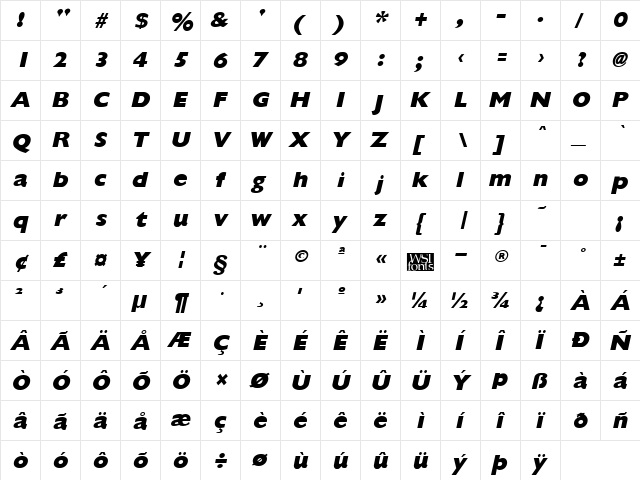
GiliganExtrabold Italic Font Preview
Design Context for GiliganExtrabold Typeface
GiliganExtrabold takes a measured approach to typography — its balanced proportions and neutral character make it a reliable workhorse for both digital and print work. The slanted form adds forward momentum and visual energy. Its bold stroke weight gives it real presence on the page.
Pro Tip: Try GiliganExtrabold for annotation and caption copy alongside an upright companion — the contrast in angle creates a dynamic but ordered typographic system.